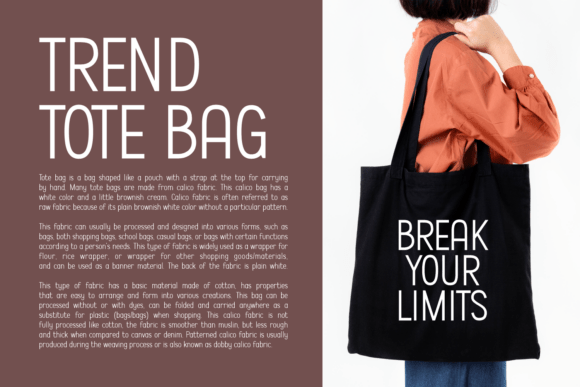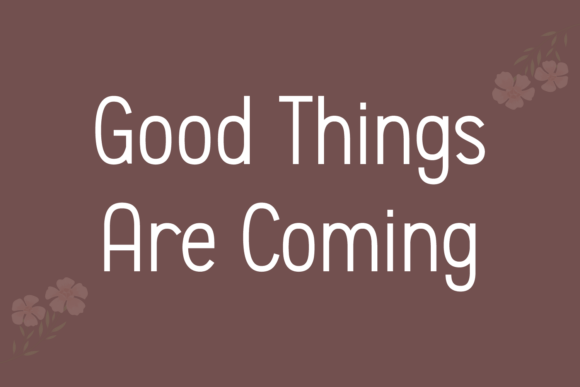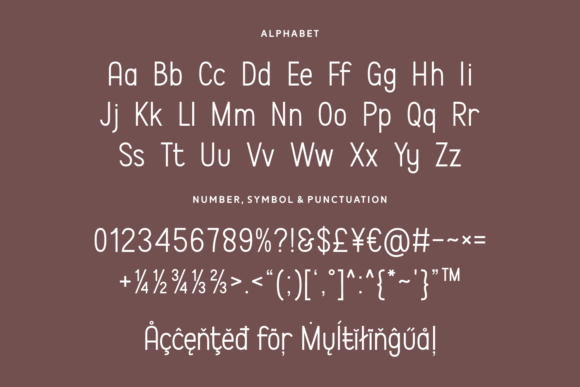
Introducing Double Shake Font: Elevate Your Designs with Clarity and Versatility
In the world of typography, a font can make or break a design. When it comes to creating visually stunning and effective designs, the right font choice is crucial. For designers and crafters looking for a clean, contemporary, and versatile sans serif font, Double Shake is an excellent option. Designed with clarity and elegance in mind, Double Shake is perfect for a wide range of applications, from editorial layouts and modern branding to website headlines and minimalist designs.
Clean and Contemporary Design
Double Shake boasts a clean and contemporary sans serif design that exudes professionalism and friendliness. Its tall x-heights and smooth curves create a visually appealing aesthetic that is both modern and approachable. The font’s geometric elegance makes it an excellent choice for designers seeking a sophisticated look that won’t overpower their designs.
One of the standout features of Double Shake is its versatility. This font is designed to work seamlessly across various mediums and applications. Whether you’re working on editorial layouts, such as magazines or newspapers, or creating modern branding materials, like logos or packaging, Double Shake is up to the task. Additionally, its clean lines and elegant curves make it perfect for website headlines, where readability and style are paramount.
Perfect for Minimalist Designs
For designers who appreciate the beauty of minimalism, Double Shake is an excellent choice. Its subtle personality and understated elegance ensure that your designs remain clean, uncluttered, and focused on the essential elements. The font’s geometric shape and smooth lines create a harmonious balance that complements minimalist designs without overpowering them.
Why Choose Double Shake?
So, what sets Double Shake apart from other fonts? Here are a few compelling reasons to consider:
- Clarity: Double Shake’s clean design and tall x-heights ensure that your text remains clear and readable, even at smaller sizes.
- Versatility: This font is designed to work across various mediums and applications, making it a valuable addition to your font library.
- Elegance: Double Shake’s smooth curves and geometric shape create a sophisticated aesthetic that elevates your designs.
- Friendliness: Despite its professional look, Double Shake has a friendly and approachable personality that works well for a wide range of projects.
Using Double Shake in Your Designs
Integrating Double Shake into your designs is straightforward. Here are a few tips to get you started:
- Pair it with other fonts: Double Shake works well with a variety of fonts, so feel free to experiment with different pairings to find the perfect combination for your project.
- Experiment with sizes: The font’s clarity and readability make it suitable for use at various sizes, from large headlines to smaller body text.
- Play with colors: Double Shake’s elegant design works well with a range of colors, so don’t be afraid to get creative with your color palette.
In conclusion, Double Shake is an exceptional font that offers a unique blend of clarity, versatility, and elegance. Its clean and contemporary sans serif design makes it perfect for a wide range of applications, from editorial layouts and modern branding to website headlines and minimalist designs. With its subtle personality and geometric shape, Double Shake is sure to become a valuable addition to your font library. Whether you’re a designer or crafter, this font is sure to elevate your designs and help you achieve your creative goals.